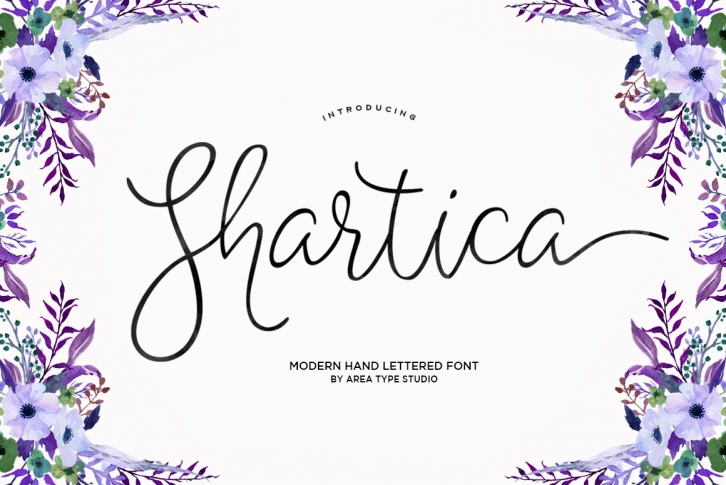
Shartica Script is a gorgeous font that was realeased on May 15, 2016. The font can be used in many style contexts and design environments. Perfect for invitations, magazines, websites, logos, and more! It was designed by Areatype Studio and the file size is 14.87 MB. Thanks for checking out this font!